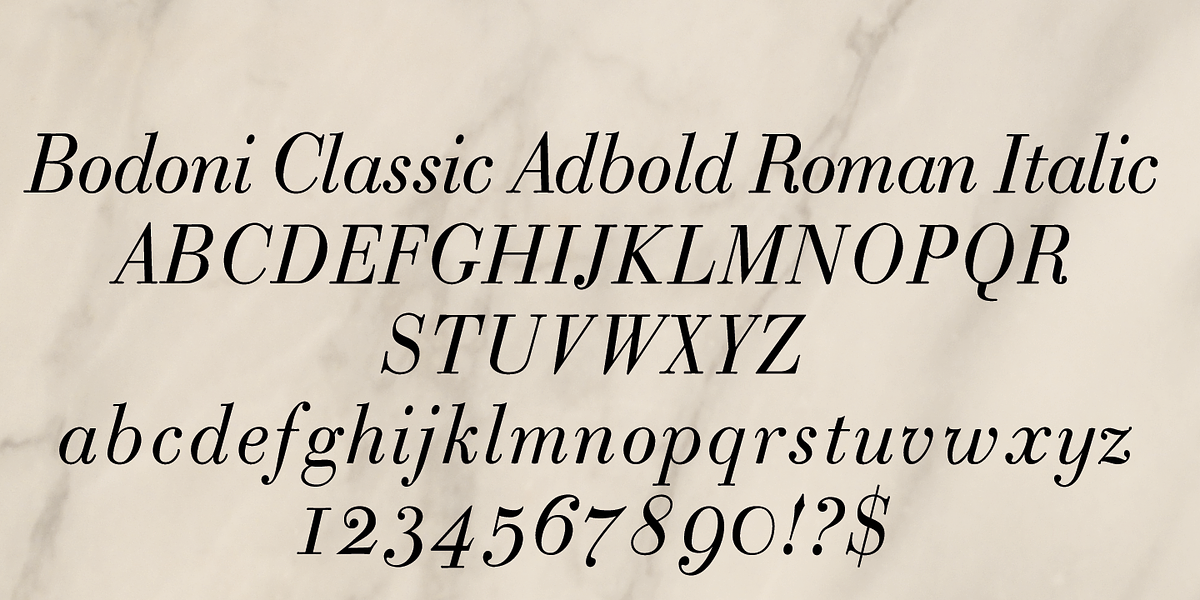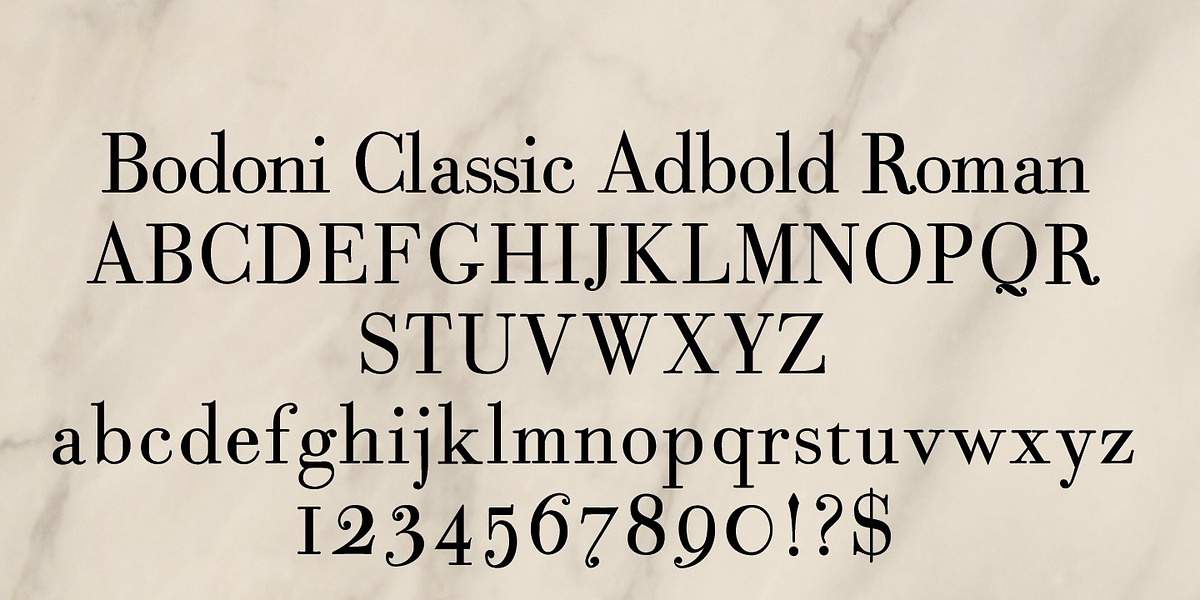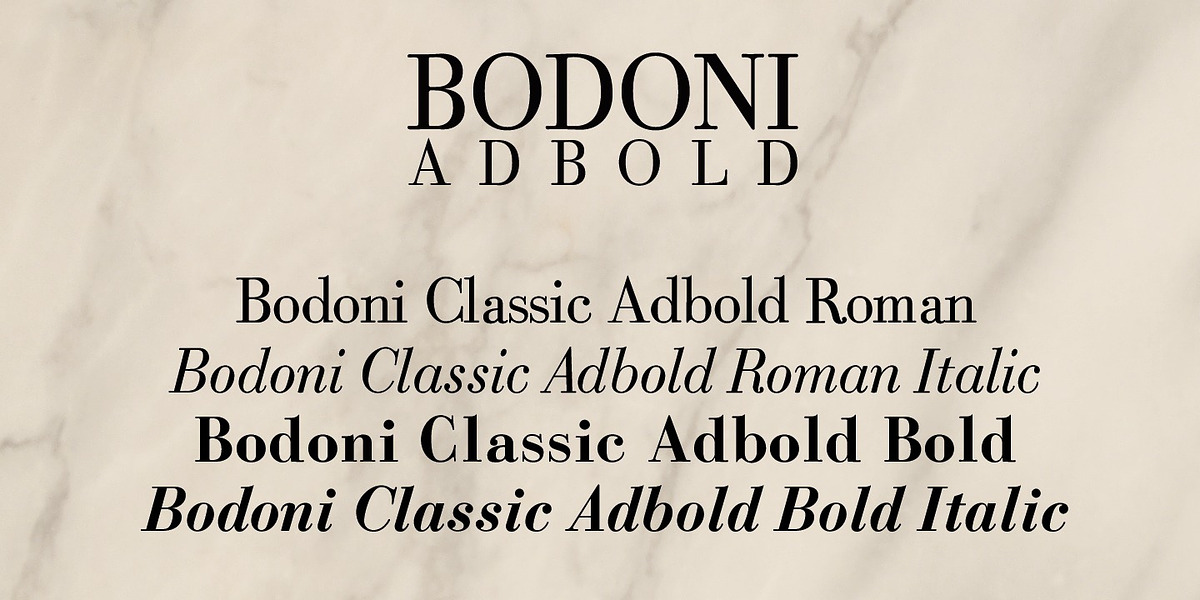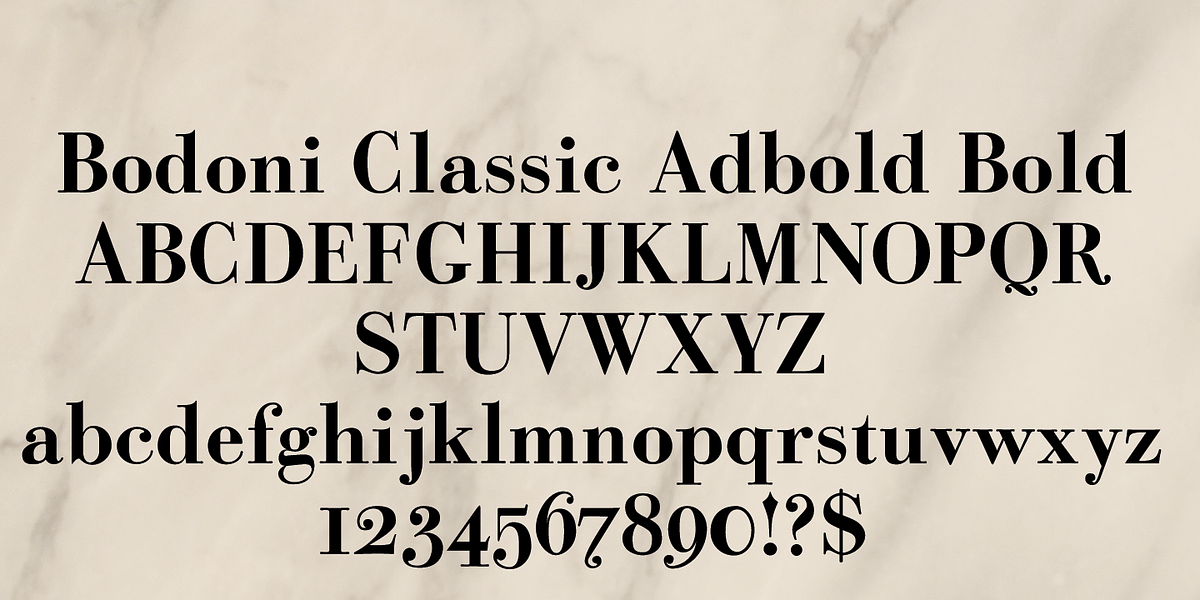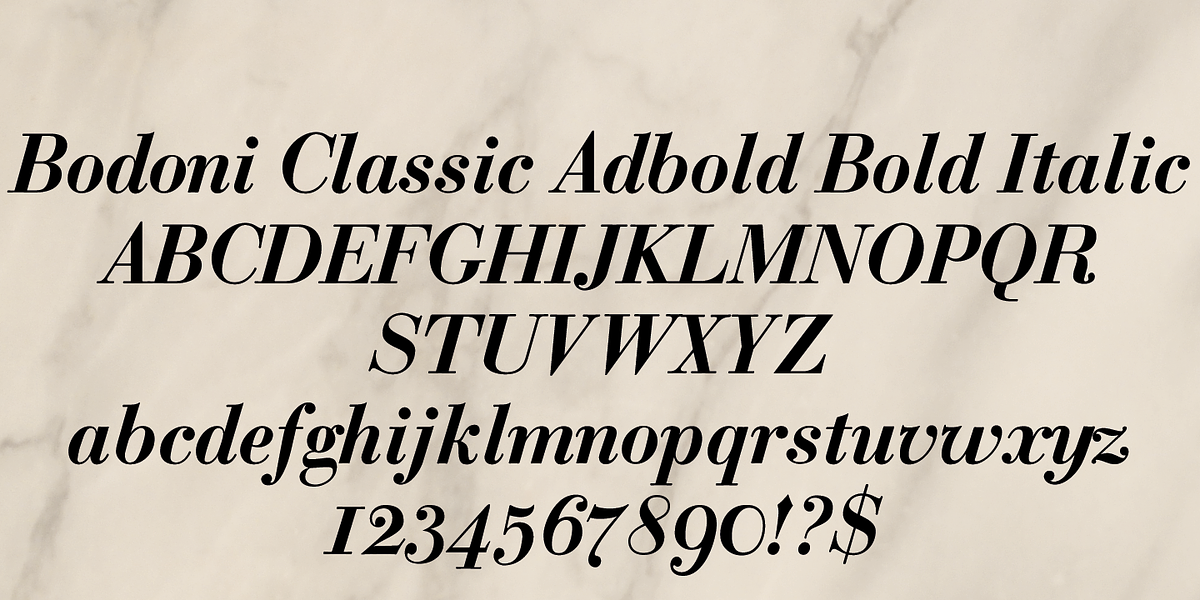
Bodoni Classic Adbold
This font is a reimagining of the classic Bodoni typeface. It retains the elegant feel of Bodoni but modernizes it with squared-off serifs instead of the original rounded ones. The slightly concave feet add a subtle touch of uniqueness to the design.